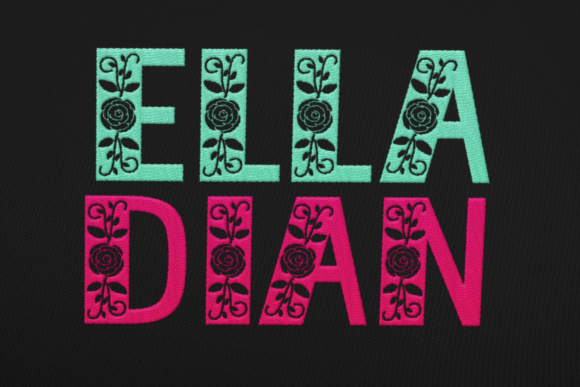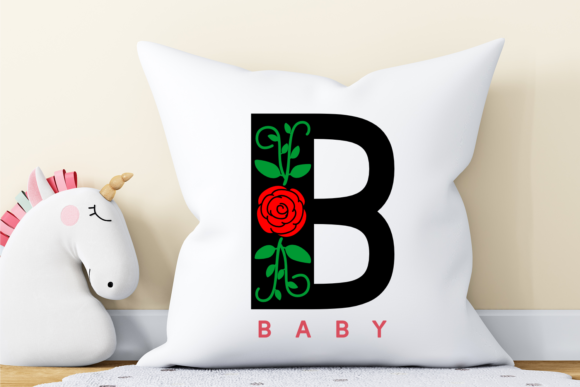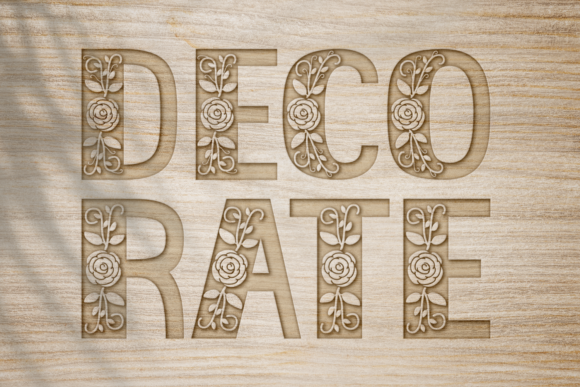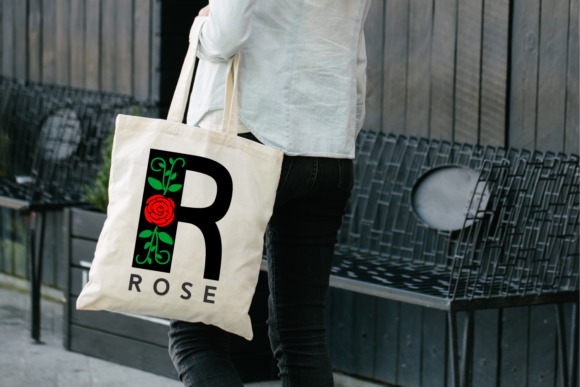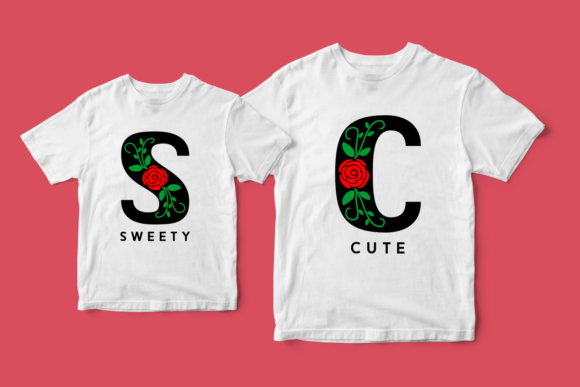
Introducing Flota Font: A Whimsical Decorative Typeface Inspired by Nature
In the world of typography, few fonts capture the essence of nature and elegance as beautifully as Flota Font. This unique decorative typeface is a masterpiece of design, drawing inspiration from the intricate details of flowers and the organic beauty of the natural world. With its distinctive rose details integrated into its character set, Flota Font is not just a font – it’s an artistic statement waiting to elevate your designs to a new level of sophistication and charm.
The Inspiration Behind Flota Font
Flota Font is more than just a collection of letters; it’s a reflection of the beauty found in nature. The designer of Flota Font took the delicate curves of roses and seamlessly integrated them into the font’s design, creating a typeface that exudes elegance and grace. This thoughtful approach to font design makes Flota Font perfect for projects where a touch of natural beauty and sophistication is desired.
Key Features of Flota Font
- Unique Decorative Style: Flota Font boasts a decorative style that is both unique and captivating. Its design is sure to make your projects stand out, whether you’re working on a professional design or a personal craft.
- Rose Details: One of the standout features of Flota Font is the inclusion of rose details within its character set. This adds a floral touch to your text, making it perfect for spring-themed projects, floral designs, and more.
- Versatility: Despite its decorative nature, Flota Font is surprisingly versatile. It can be used in a variety of projects, from digital designs to handmade crafts.
Ideal Uses for Flota Font
Flota Font’s unique characteristics make it an excellent choice for a wide range of projects. Here are some of the ideal uses for this beautiful typeface:
- Embroidery Projects: The intricate rose details in Flota Font make it a perfect match for embroidery designs. Add a touch of elegance to your embroidered garments, home decor, or accessories.
- Monogram Designs: Create personalized monograms for gifts, stationery, or any other project with Flota Font. The decorative elements add a sophisticated touch to any monogram.
- Art Prints: Flota Font is ideal for creating stunning art prints. Use it to add quotes, poems, or lyrics to your artwork, making each piece a unique expression of your creativity.
- Pillowcases and Home Decor: Bring a touch of elegance to your home decor with Flota Font on pillowcases, wall art, and other decorative items. Its natural and floral inspiration fits well with various interior design styles.
- T-Shirts and Apparel: Design custom t-shirts, hoodies, and other apparel with Flota Font for a stylish and eye-catching look. It’s perfect for spring and summer collections.
- Spring Cards and Invitations: Add a personal and artistic touch to your spring cards, invitations, and greeting cards with Flota Font. It’s especially suitable for Easter, Mother’s Day, and wedding invitations.
Tips for Using Flota Font Effectively
To make the most out of Flota Font, consider the following tips:
- Pair with Complementary Fonts: When pairing Flota Font with other fonts, choose simple and clean typefaces that complement its decorative style without overpowering it.
- Experiment with Colors: Flota Font looks stunning in pastel colors, gold, and soft greens, which enhance its natural and floral theme. Don’t be afraid to experiment with different colors to find the perfect match for your project.
- Consider the Scale: The intricate details of Flota Font shine best when used at larger sizes. Consider the scale of your project and adjust the font size accordingly to highlight its beauty.
Flota Font is a charming and elegant typeface that brings a touch of nature and sophistication to any design project. Its unique rose details and decorative style make it a standout choice for a variety of applications, from embroidery and monograms to art prints and home decor. With its ease of use and versatility, Flota Font is sure to inspire designers and crafters to create beautiful and memorable pieces. Whether you’re working on a professional project or a personal craft, Flota Font is an excellent addition to your design toolkit.